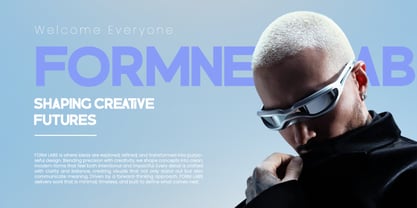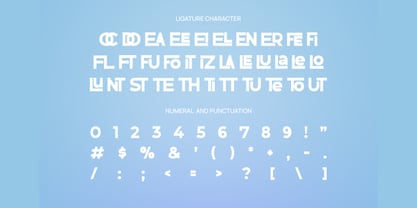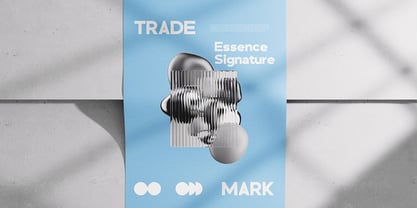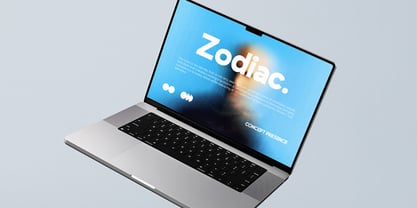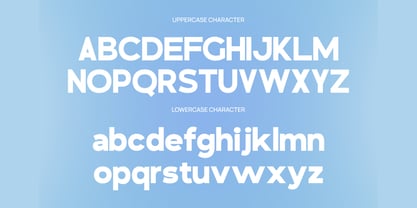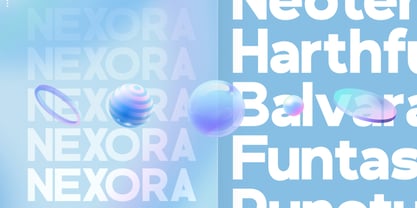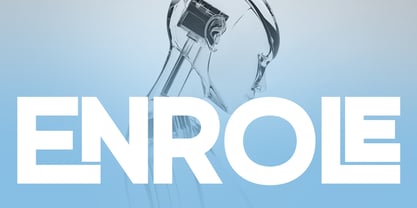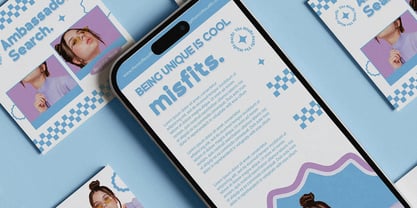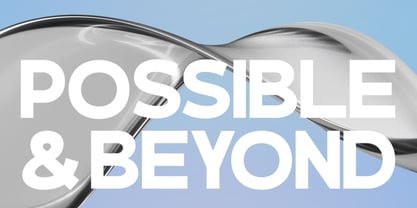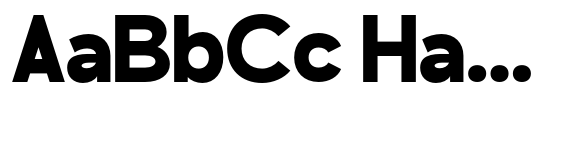
Enrole
Enrole is a modern geometric sans serif font defined by bold structure, clean curves, and balanced proportions. It includes uppercase, lowercase, numerals, and punctuation with a consistent geometric construction that delivers clarity and strong visual impact. The design emphasizes simplicity and precision, making it suitable for contemporary layouts with a futuristic and professional tone.
Relevance and Use Cases is perfect for corporate branding, technology products, startup identity systems, UI/UX design, editorial layouts, advertising campaigns, social media graphics, modern posters, digital interfaces, and professional presentations that require a clean and strong visual tone.